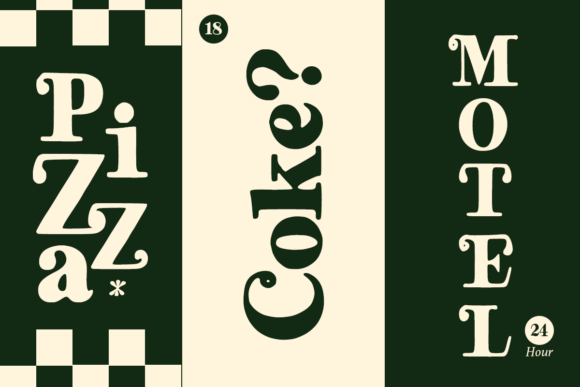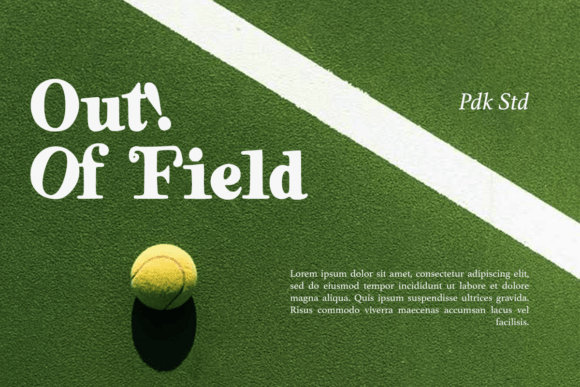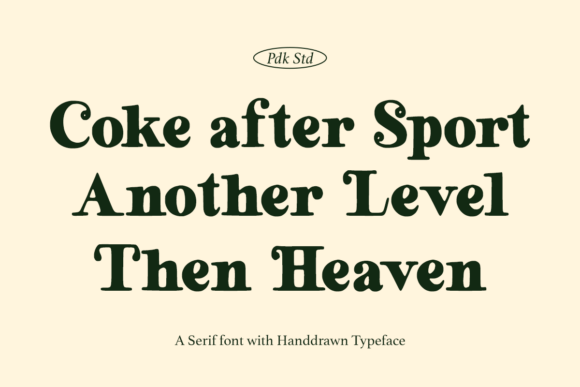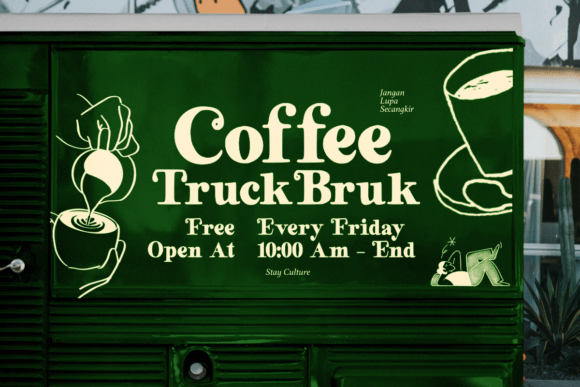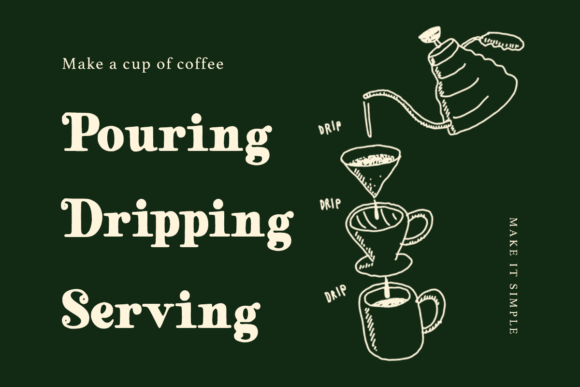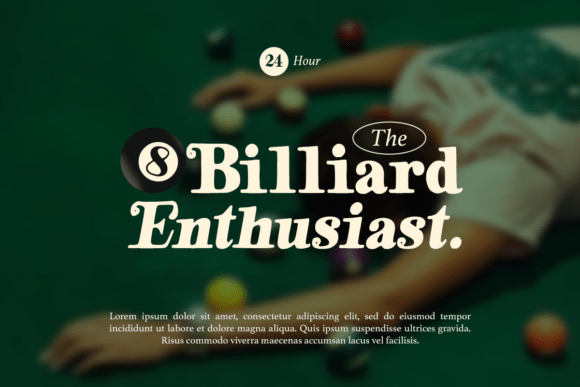
Clyante Font: Where Retro Charm Meets Modern Elegance
In the world of typography, fonts play a crucial role in conveying the tone and personality of a brand or design. For designers and crafters looking for a typeface that exudes a unique blend of retro charm and casual elegance, Clyante Font is an excellent choice. This hand-drawn serif typeface has been gaining popularity for its distinctive human feel, making it perfect for a wide range of design applications.
The Unique Characteristics of Clyante Font
Clyante Font boasts bold curves, quirky terminals, and slightly uneven strokes, which give it a distinctly human and organic feel. Unlike traditional serif typefaces, Clyante’s hand-drawn nature brings a level of warmth and personality to designs. Its retro charm is balanced with a casual elegance, making it versatile enough to be used in various contexts, from editorials and packaging to sports branding and vintage promotions.
Design Applications for Clyante Font
Clyante Font’s versatility makes it suitable for a wide range of design applications. Some of the ideal uses for Clyante include:
- Editorials: Add a touch of personality to your magazine or newspaper layouts with Clyante’s unique charm.
- Packaging: Stand out on store shelves with Clyante’s bold and eye-catching design.
- Sports Branding: Give your sports brand a retro vibe with Clyante’s quirky and energetic feel.
- Retro Signage: Create vintage-inspired signs that transport customers back in time.
- Coffee Shops: Add a touch of warmth and coziness to your coffee shop’s branding with Clyante’s elegant and casual feel.
- Vintage Promotions: Give your promotional materials a unique and eye-catching look with Clyante’s retro charm.
Features of Clyante Font
Clyante Font comes with a range of features that make it an excellent choice for designers and crafters. Some of its key features include:
- Full Character Set: Clyante includes a full character set, comprising uppercase, lowercase, numbers, punctuation, and special glyphs.
- Multilingual Support: Clyante supports multilingual use, making it perfect for designs that require text in multiple languages.
Why Choose Clyante Font?
With so many typefaces available, why choose Clyante Font? Here are just a few reasons why Clyante stands out:
- Unique Personality: Clyante’s hand-drawn nature gives it a unique personality that sets it apart from traditional typefaces.
- Versatility: Clyante’s versatility makes it suitable for a wide range of design applications.
- Authenticity: Clyante’s retro charm and casual elegance make it perfect for designs that seek both authenticity and flair.
In conclusion, Clyante Font is an excellent choice for designers and crafters looking for a typeface that exudes a unique blend of retro charm and casual elegance. Its hand-drawn nature, bold curves, quirky terminals, and slightly uneven strokes give it a distinctly human feel, making it perfect for a wide range of design applications. With its full character set, multilingual support, and versatility, Clyante Font is sure to bring personality and authenticity to your layouts.